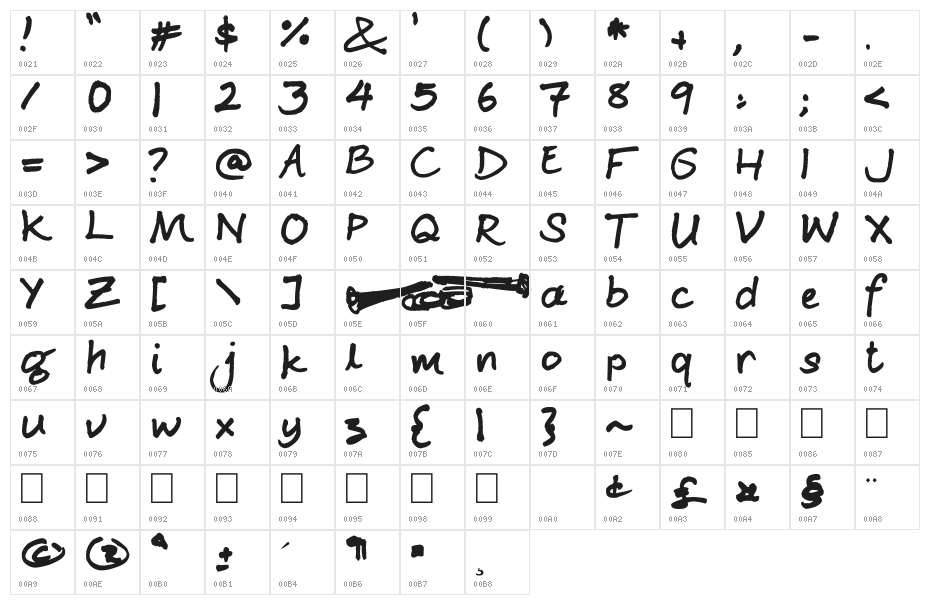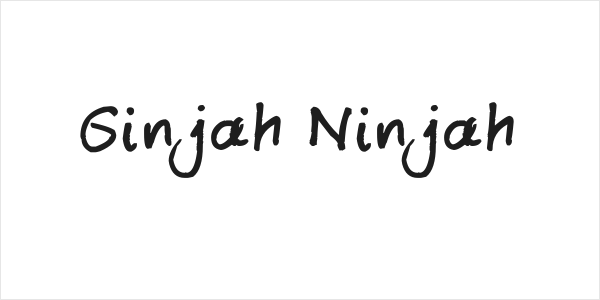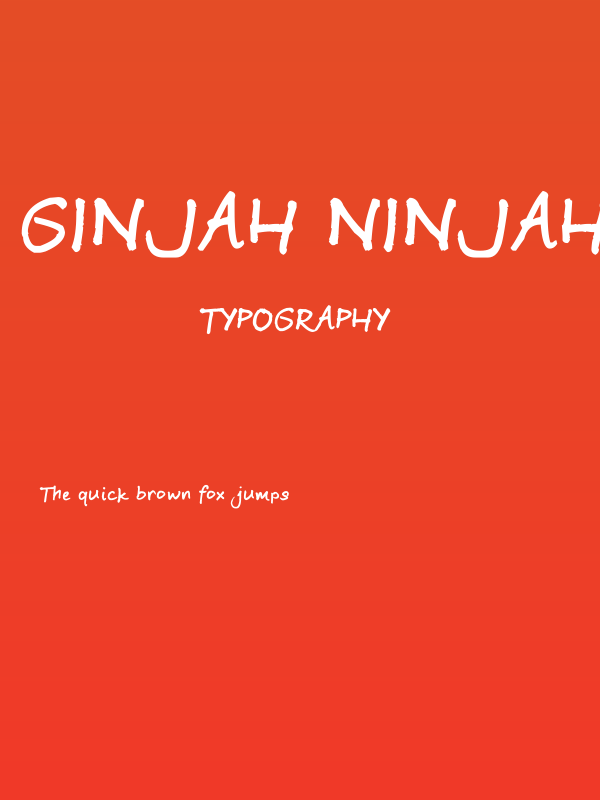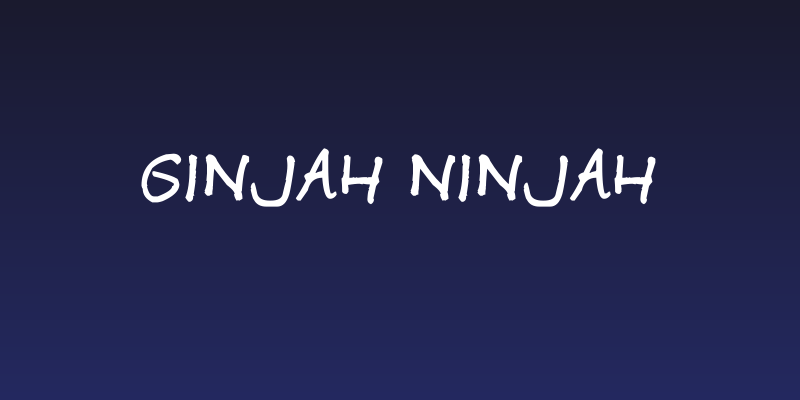
Ginjah Ninjah Font
Ginjah Ninjah Description
This font exudes a playful and energetic vibe, characterized by its handwritten style. The letters are slightly slanted, giving a casual and informal appearance. The strokes are uneven, with varying thickness, adding to the dynamic and lively feel. The uppercase and lowercase letters maintain a consistent style, with rounded edges and a flowing script-like quality. Numbers and special characters are crafted with the same playful touch, ensuring a cohesive look across all elements. This font is perfect for projects that require a personal, friendly, and approachable tone.
| Proposed Projects | Ideal for greeting cards, children's books, casual branding, and social media graphics. |